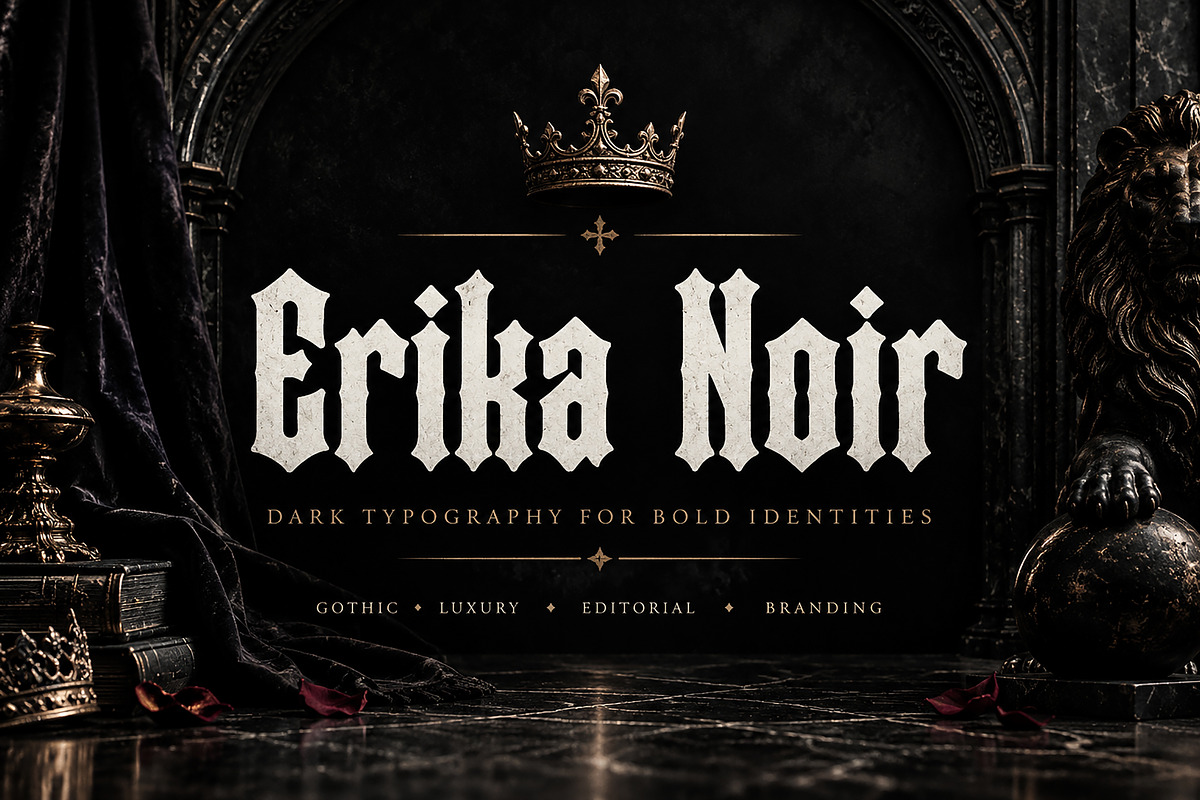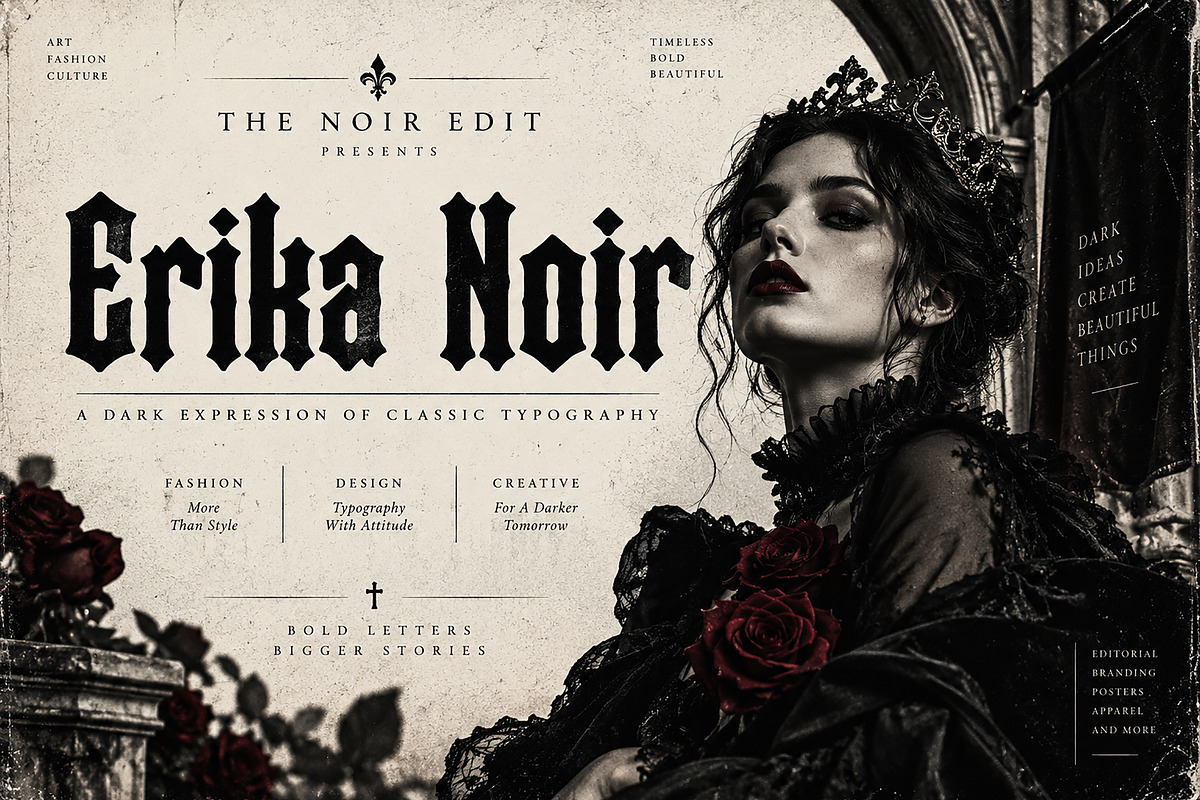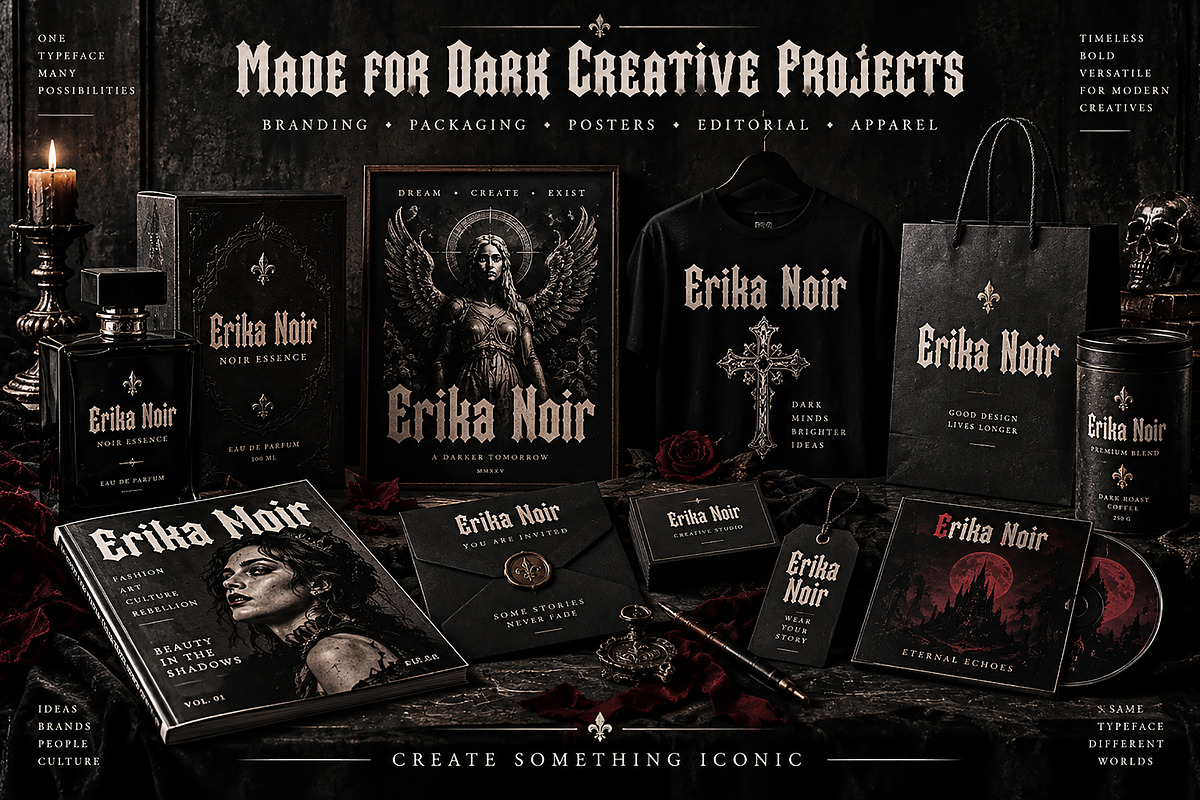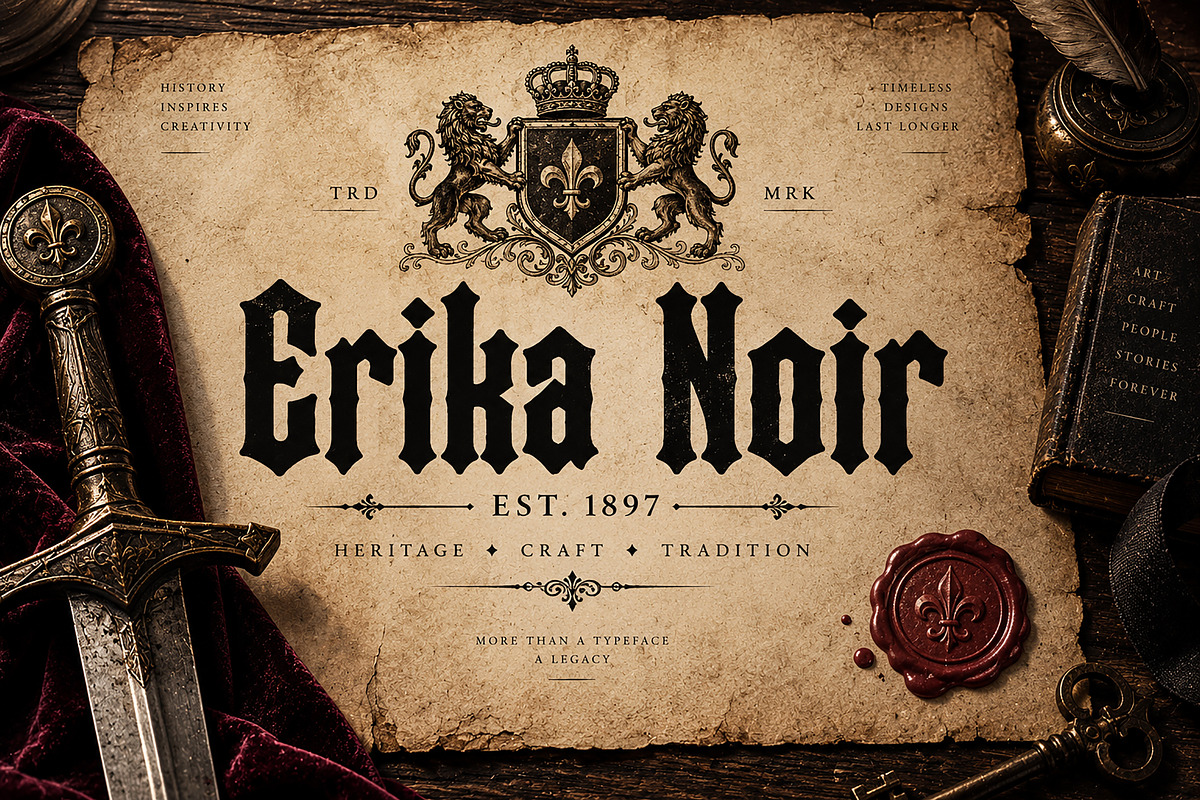
Erika Noir
Erika Noir is a bold and atmospheric Blackletter display typeface designed for projects that demand a dark, dramatic, and distinctive visual identity. With its sharp medieval-inspired forms and powerful gothic character, Erika Noir brings an instant sense of mystery, heritage, attitude, and luxury to your designs.
Perfect for creating striking logos, branding, posters, album artwork, fashion graphics, apparel designs, packaging, labels, editorial layouts, invitations, merchandise, and other dark creative projects.
Whether you're creating a gothic fashion identity, a vintage-inspired brand, a powerful poster, or statement apparel, Erika Noir is designed to make your typography stand out and leave a memorable impression.
Gothic & Dark Branding
Logo & Identity Design
Fashion & Streetwear
T-Shirt & Apparel Design
Posters & Album Artwork
Luxury & Vintage Branding
Product Packaging & Labels
Magazine & Editorial Design
Invitations & Event Graphics
Merchandise & Promotional Designs
Medieval & Historical Projects
Tattoo-Inspired Graphics
Social Media & Creative Artwork
Style: Blackletter / Gothic / Medieval Display
Turn ordinary words into powerful visual statements with Erika Noir — a dark, iconic typeface made for creative projects that refuse to look ordinary.